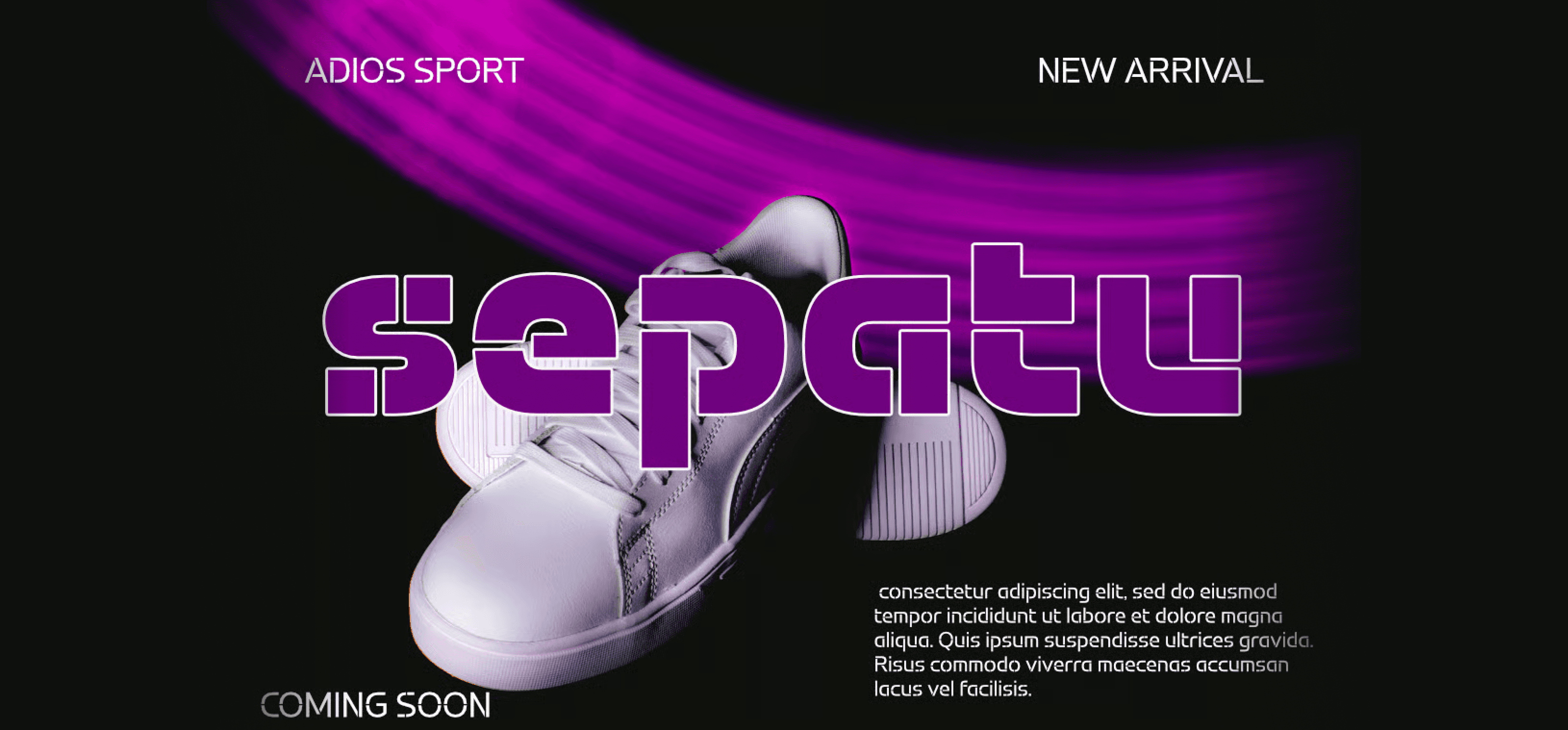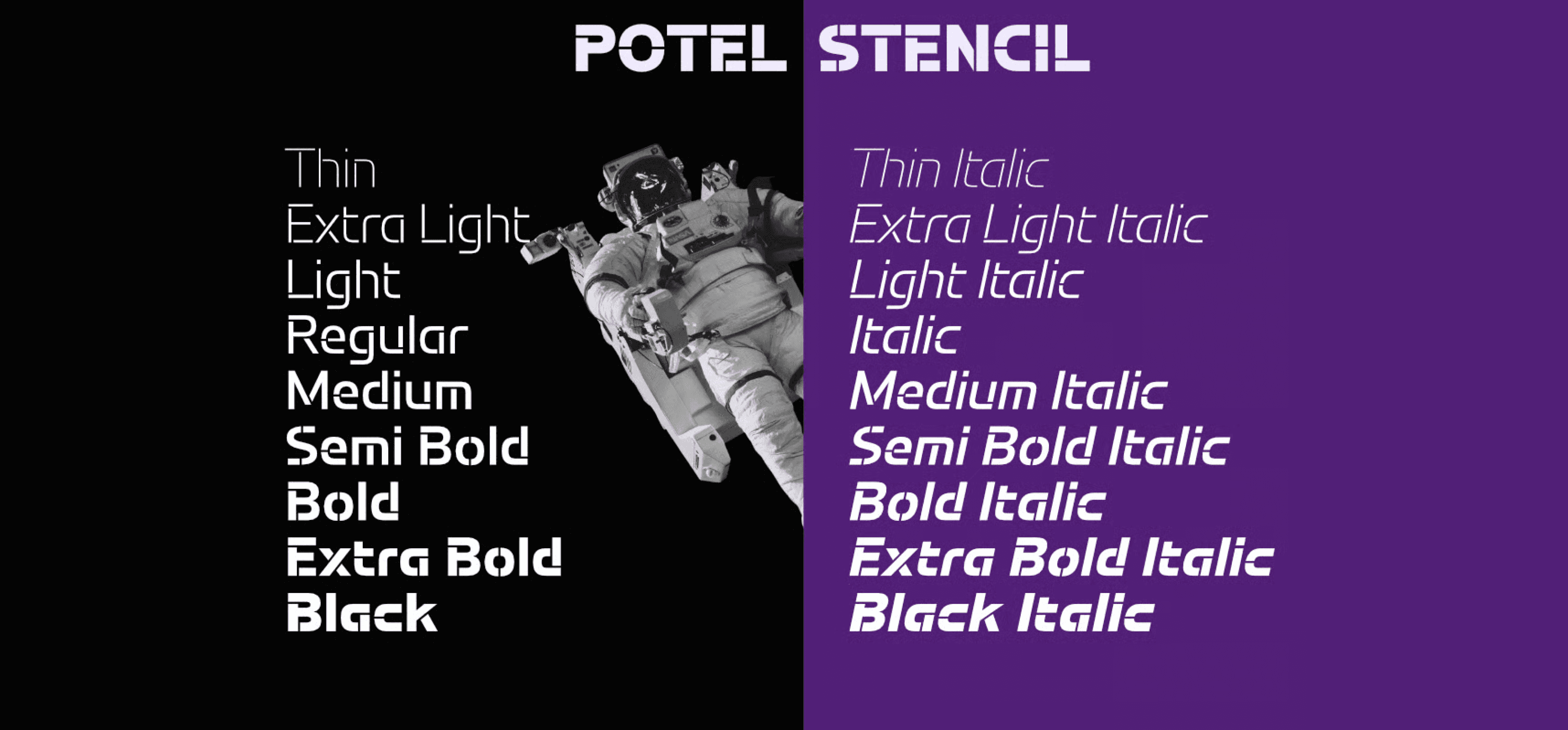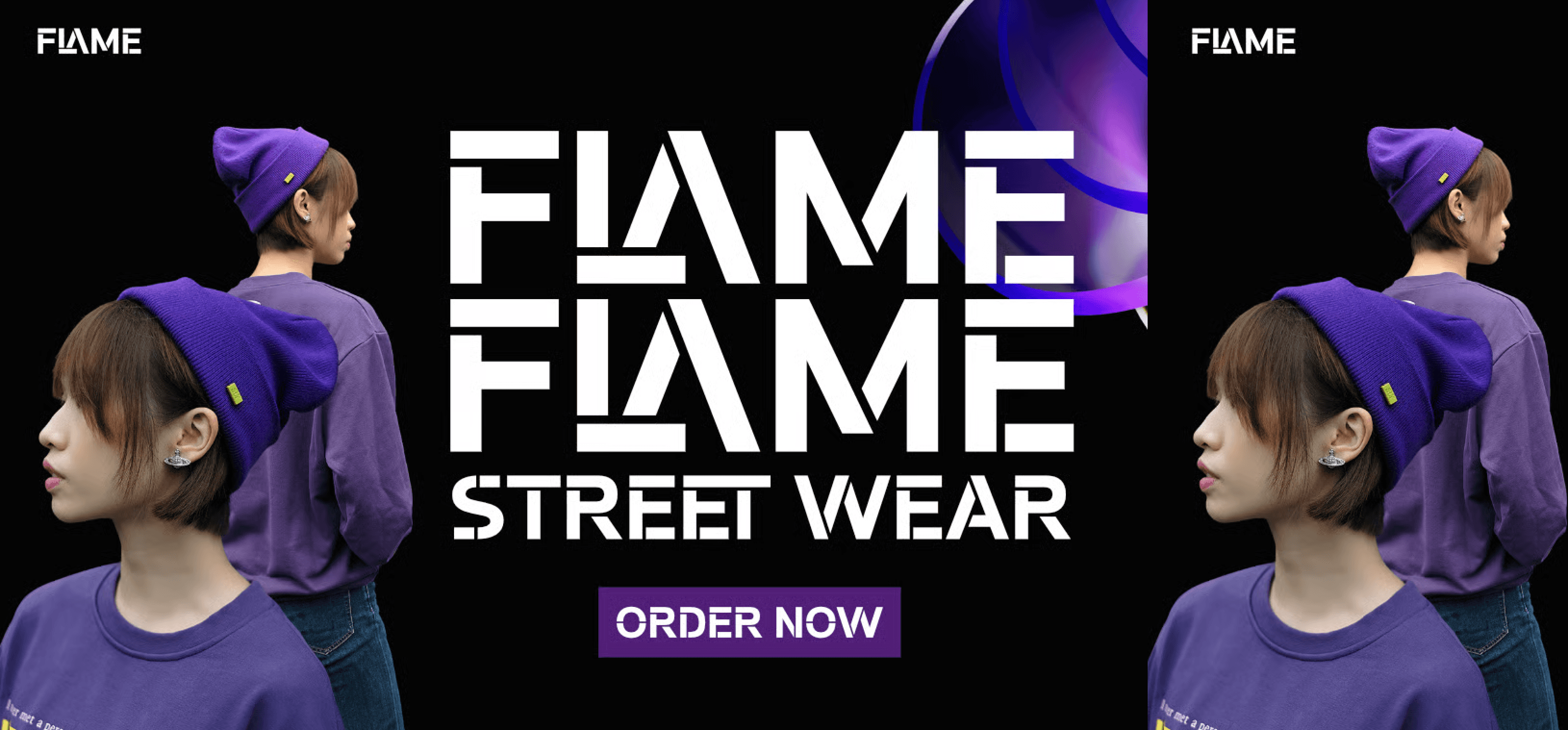
Potel Stencil is a modern typeface family that blends a futuristic aesthetic with a strikingly unique cut-out feel. With 18 styles, ranging from Thin to Black, and including Italic variations for each weight, this font offers exceptional versatility for diverse design needs. Every character in Potel Stencil is precisely crafted, featuring distinctive cuts that convey a sophisticated and high-tech impression, making it an ideal choice for innovative and daring designs.